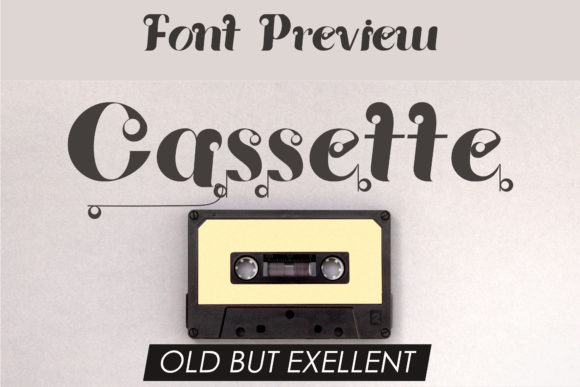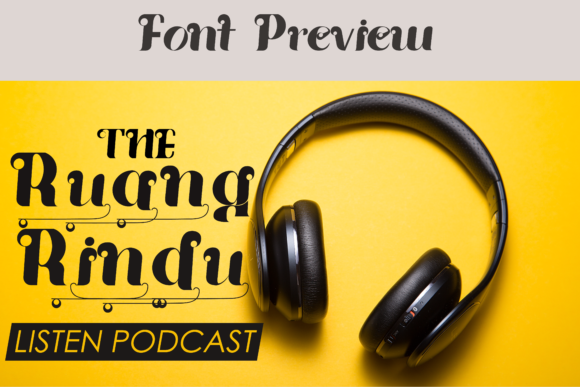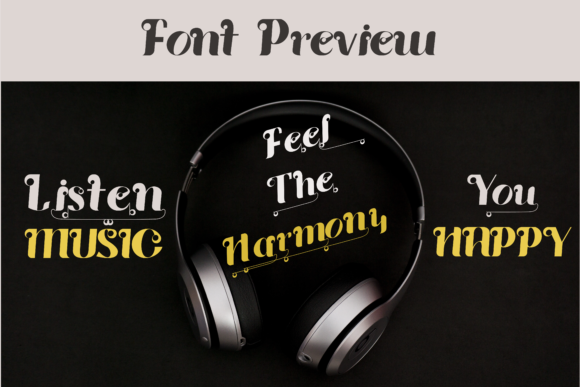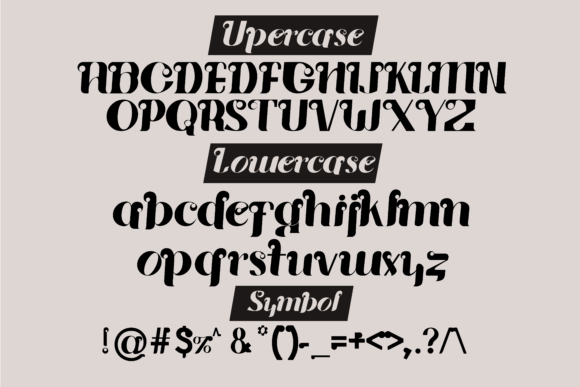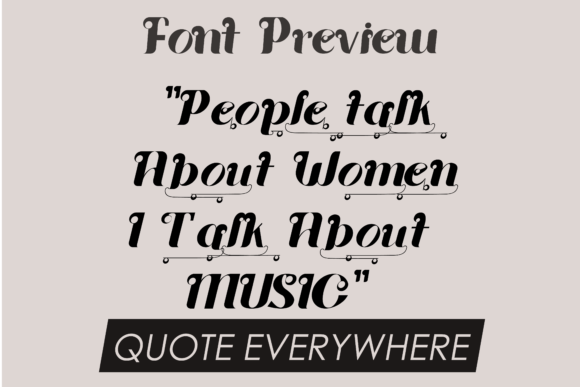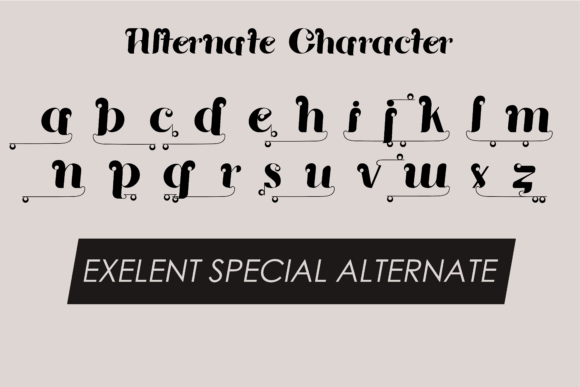
Introduction to Rythem Font
Remember that moment when you stumbled upon the perfect design element, and everything fell into place? For designers, it’s a feeling that never gets old. And what if I told you that the Rythem Font could be that game-changer for your next creative project? With its unique blend of elegance and experimentation, this display font is about to take your designs to new heights.
Whether you’re a seasoned pro or just starting out, the Rythem Font is an invaluable resource for any design enthusiast. Its authentic charm and versatility make it the perfect addition to your toolkit, ready to elevate even the simplest ideas into stunning visuals. Imagine being able to download it for free and add a touch of sophistication to your designs with a single click – sounds like a dream come true, doesn’t it?
So, what sets the Rythem Font apart from the rest? Its high-quality design and transparent background make it a standout choice for any creative project, from logos and branding to posters and more. Get ready to unlock your full design potential with the Rythem Font – and discover a world of endless possibilities!
Key Features of Rythem Font
- Unique and creative design suitable for various design projects, including posters, logos, and social media graphics.
- Includes a transparent background, making it easy to use in layered designs and allowing for maximum flexibility.
- Features a high-resolution design, ensuring crisp and clear text output when used at various sizes and resolutions.
- Perfect for designers and artists working on creative projects, including digital art, graphic design, and print materials.
Honest Review: Rythem Font
As a designer, I’m always on the lookout for high-quality design resources to elevate my creative projects. Recently, I stumbled upon the Rythem Font, and I’m excited to share my honest review.
- ✨ High-quality design: The Rythem Font has a sleek and modern design that’s perfect for contemporary projects.
- ✨ Transparent background: The font’s transparent background makes it easy to use with any background image or color, giving you complete design flexibility.
- ⚠️ Limited character set: The Rythem Font only includes a limited character set, which may not be suitable for projects requiring extensive text.
- ⚠️ Not suitable for body text: Due to its modern design, the Rythem Font may not be the best choice for body text, as it can be overwhelming for large blocks of text.
Overall, I’m impressed with the Rythem Font’s design and versatility. While it may not be suitable for every project, it’s an excellent addition to any designer’s arsenal, especially for creative projects requiring a modern touch.
For the most out of Rythem Font, experiment with different font sizes and colors. Use the transparent background to create a seamless design. Combine Rythem Font with other design elements to create a unique and creative project.
Rythem Font is ideal for creating titles, headings, and graphics for various design projects. It’s also great for branding and logo design due to its high-quality and unique design.
Yes, the Rythem Font is designed to be high-quality and suitable for high-resolution designs. It features crisp and clear typography, making it perfect for use in print materials, digital displays, and other creative projects where image clarity is crucial.